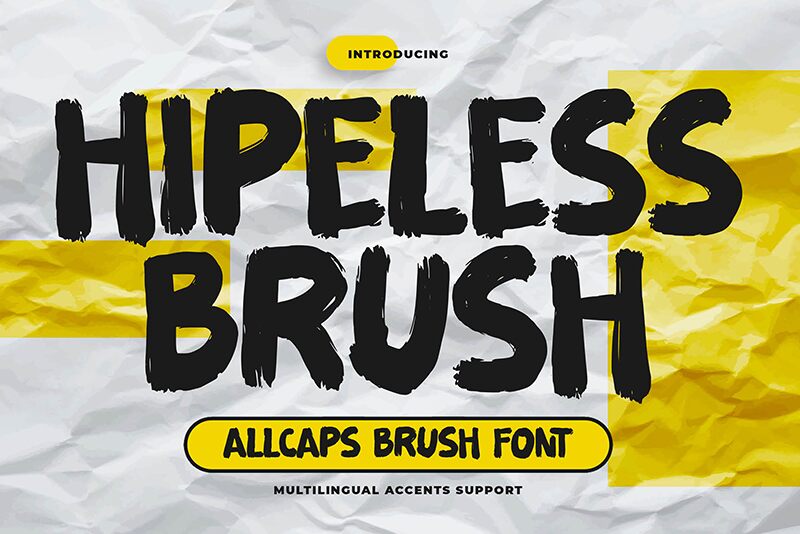
Hipeless Brush
Hipeless Brush by Gassstype stands out with its authentic brush style and bold weight, crafting a dramatic visual dance that captures the essence of casual, rapid strokes. Perfectly suited for projects that demand a modern and unique touch, this all-caps typeface embodies fun with an edge. Its natural look and dynamic movement make it an ideal choice for a wide array of creative endeavors.
From eye-catching posters to bespoke branding and packaging, Hipeless Brush injects personality into every design. It's also a brilliant pick for personalizing greeting cards, websites, photography overlays, and scrapbooking elements. Embrace the distinct flair of Hipeless Brush in your next project to ensure your designs not only stand out but also resonate with an air of crafted sophistication and spontaneity.